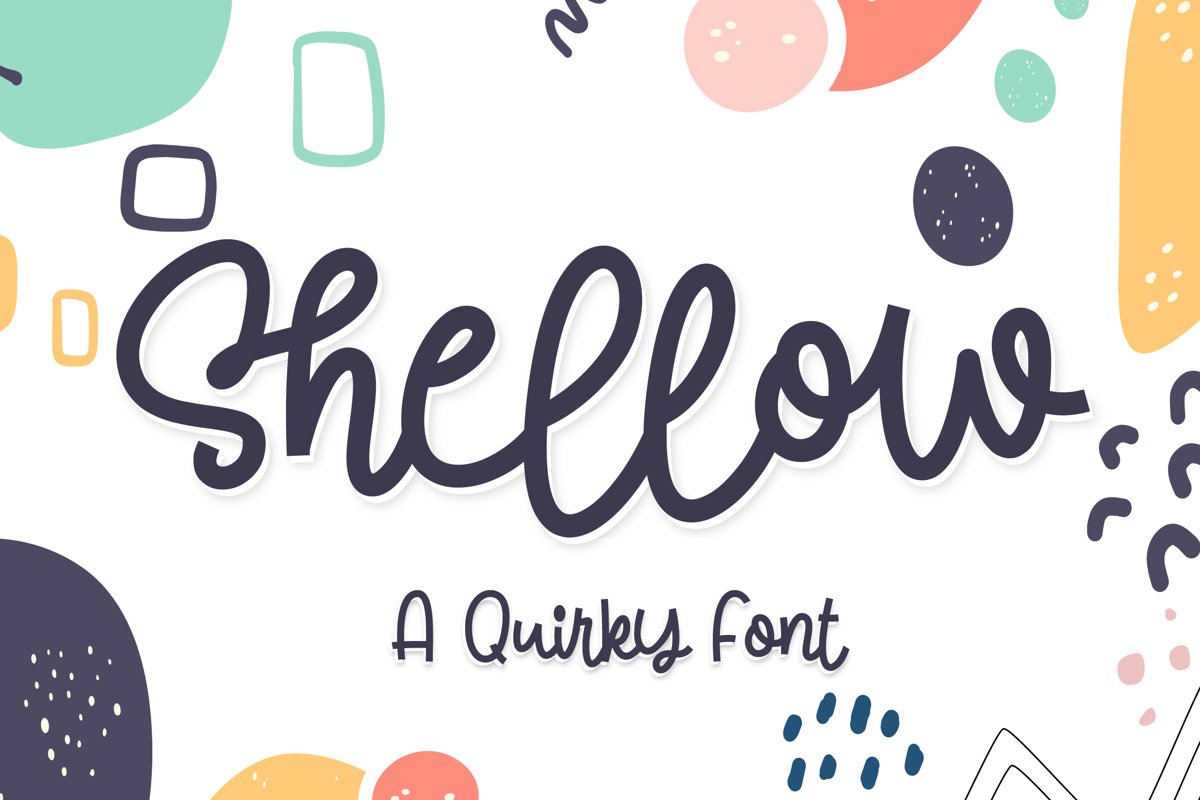
Shellow - a quirky font
Shellow
Shellow is a quirky and cute font. This font will turn any creative idea into a true standout and this font best choice to crafting project, apparel, thank you cards, quotes, greeting cards, labels, eye-cacthing wedding invitation, and much more.
Shellow - a quirky font